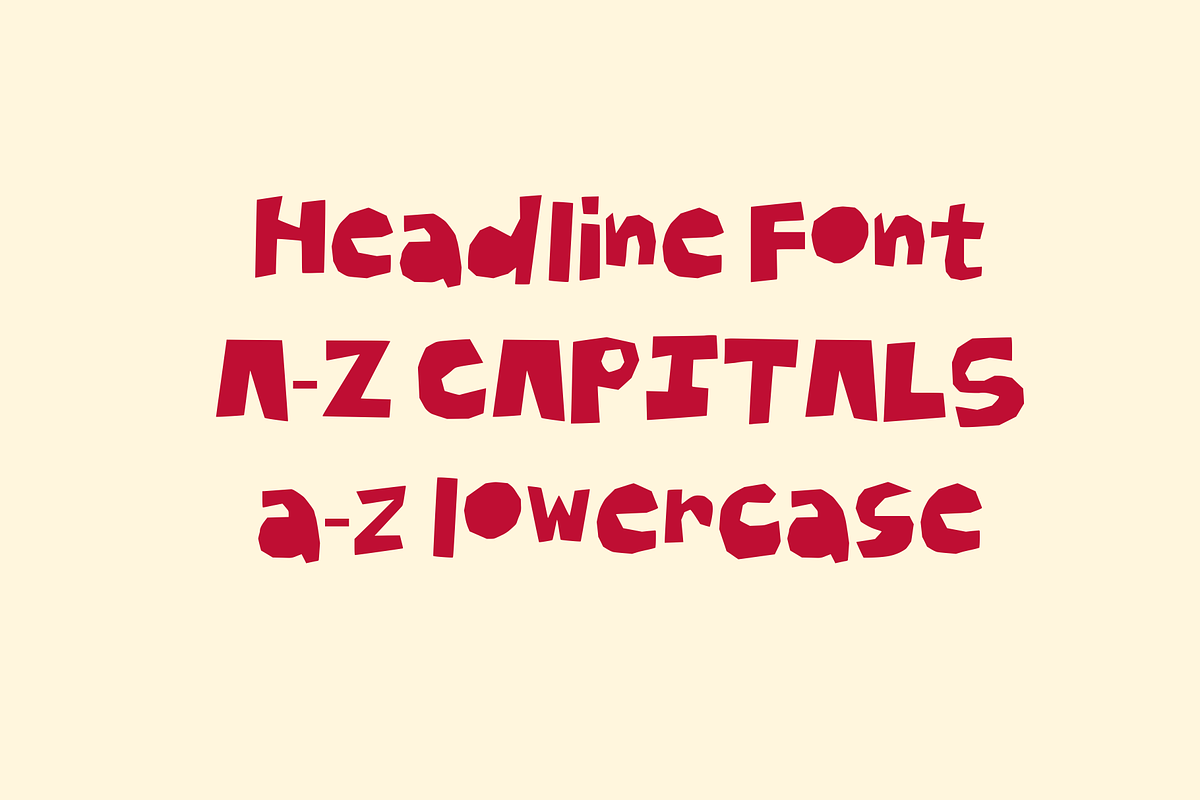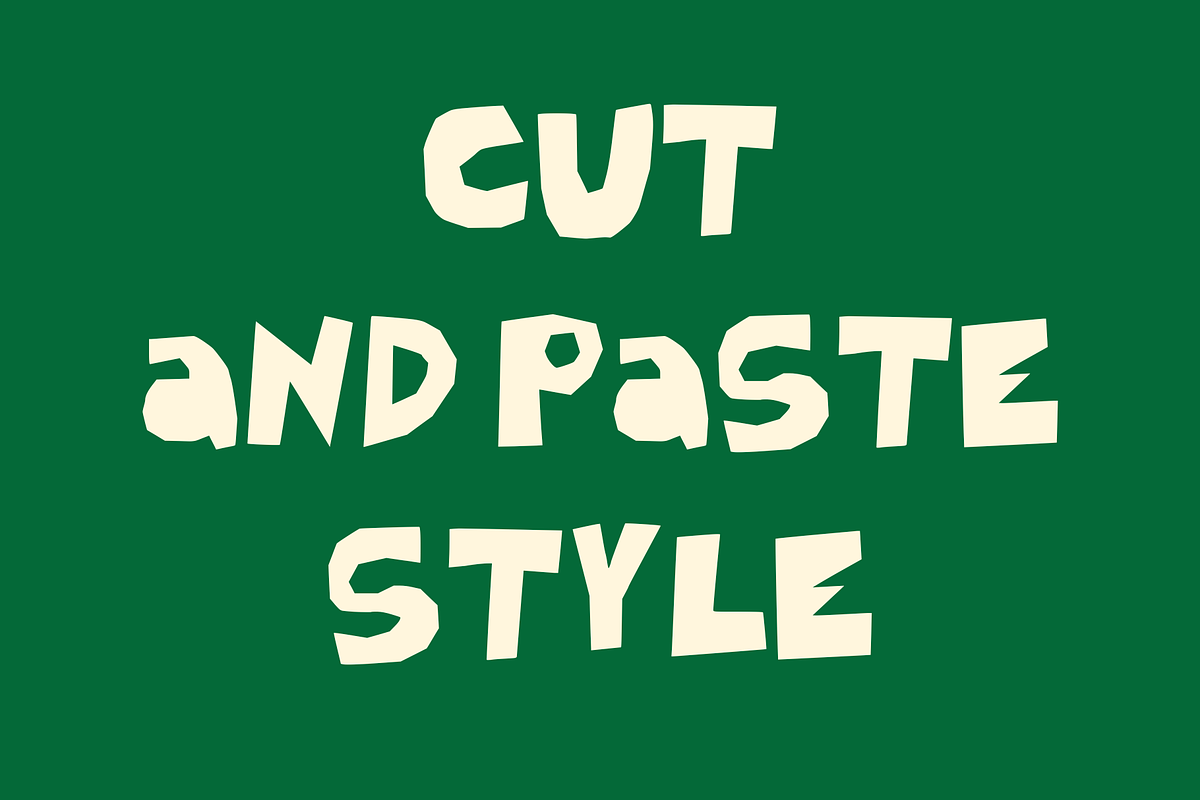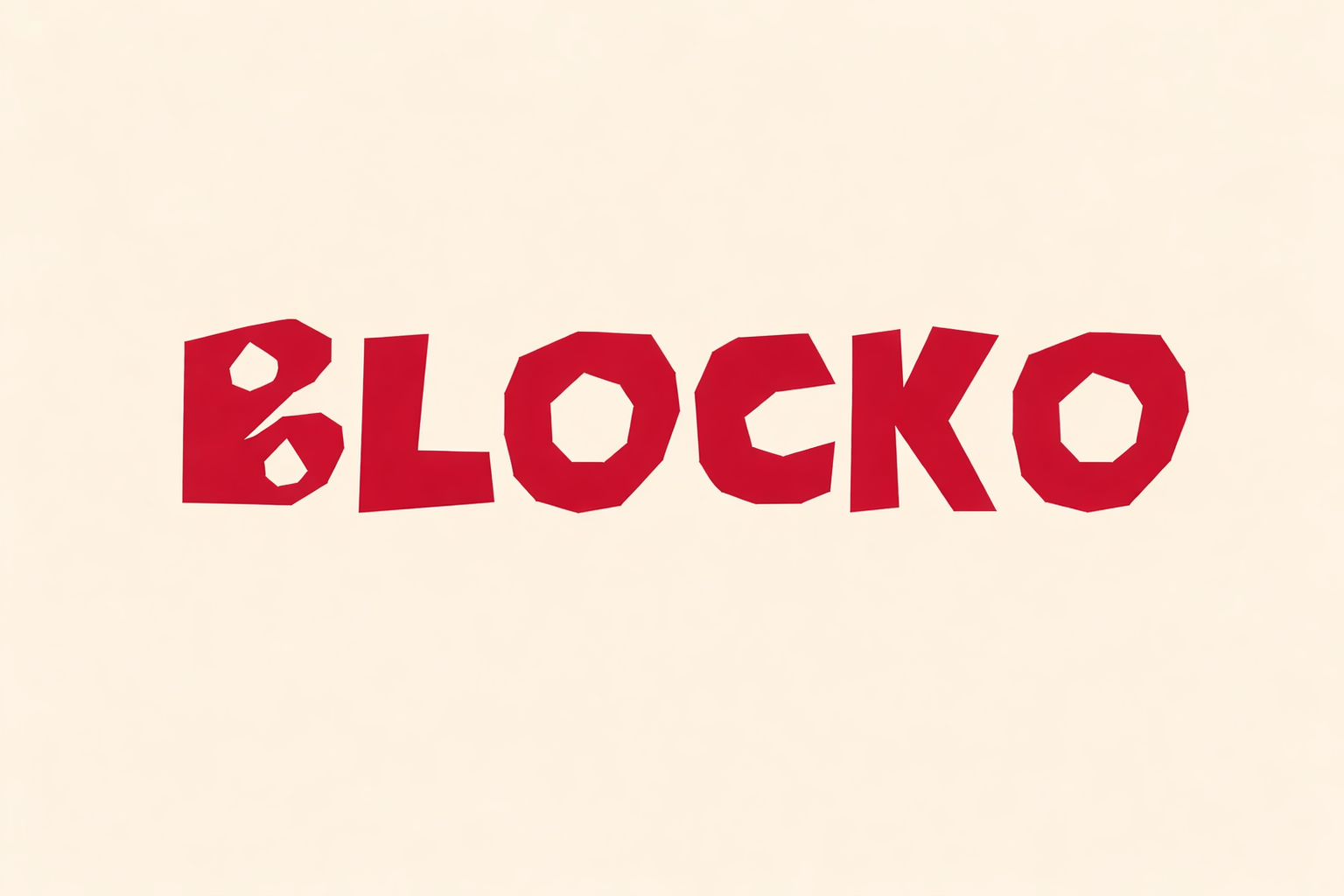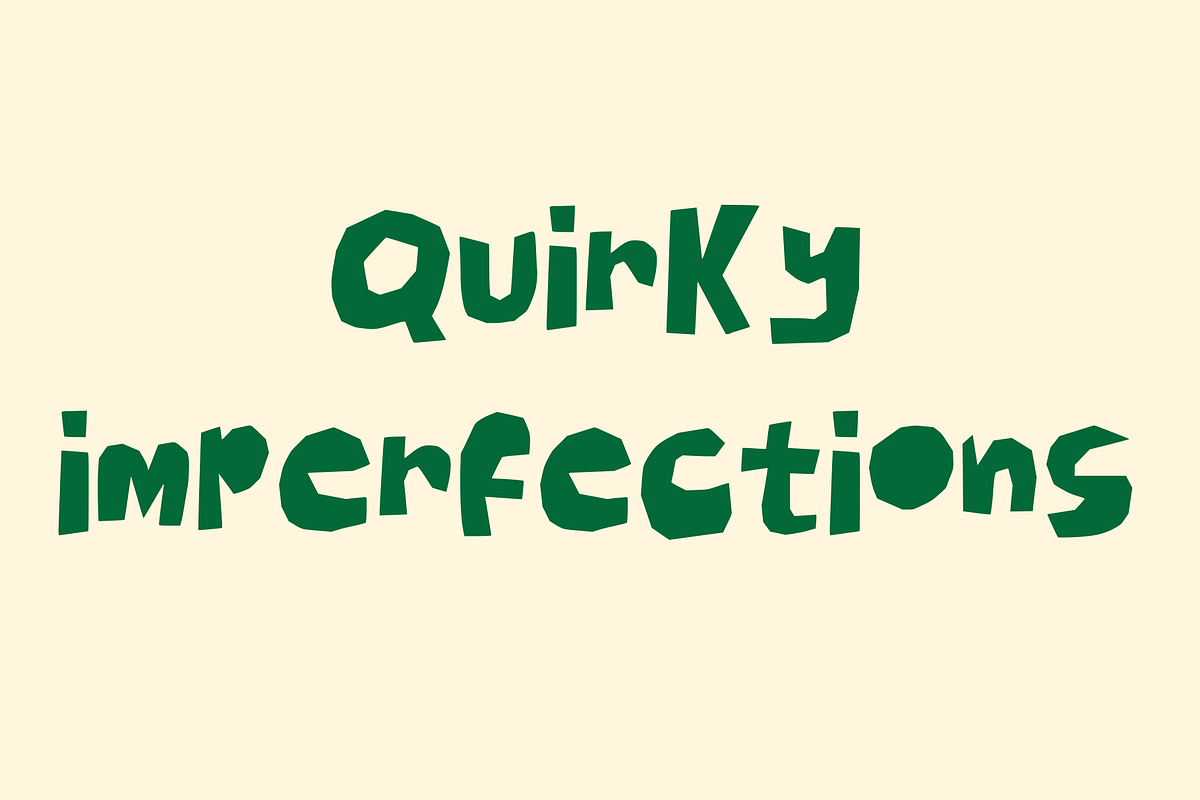
Blocko - A Bold Handmade Font
Raw. Handmade. Built to hit hard.
Blocko is a handmade block font with the rough authenticity of something drawn freehand - no clean edges, no digital perfection, just pure character. It's ideal for streetwear graphics, merch design, music branding, and any project that wants to feel gritty, real, and completely its own.
Streetwear & apparel graphics
Music merch & tour branding
Skate & action sports brands
Zine & editorial design
Poster & print design
Indie brand identity
Full uppercase & lowercase character set
Blocko is for the projects that don't want to look like everything else.